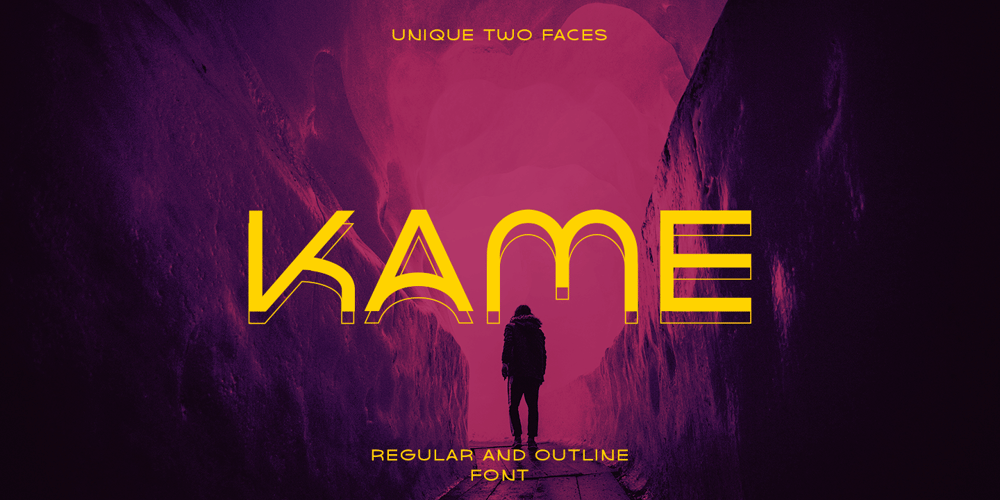
Kame
Kame font
Kame Font Family was designed by Anwar Patihan and published by Jehoo Creative. Kame contains 2 styles and family package options. Kame has a unique character and comes with 2 styles, allowing you to play with combinations to create a stunning display. This font is suitable for many design formats, such as posters, cover art, logos, magazines and anything with a futuristic theme.